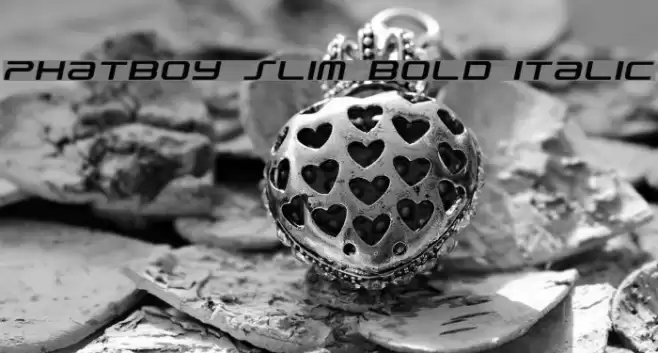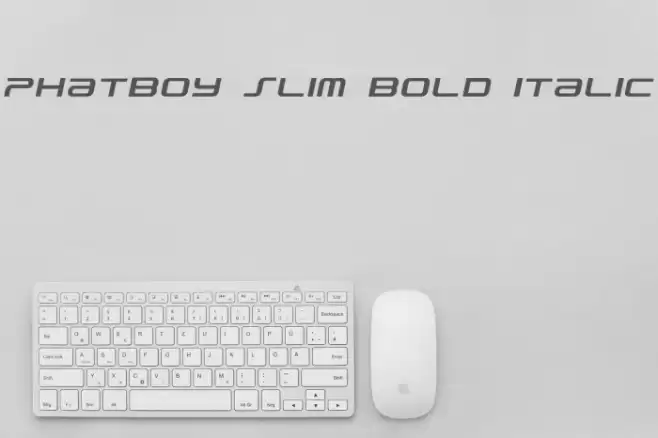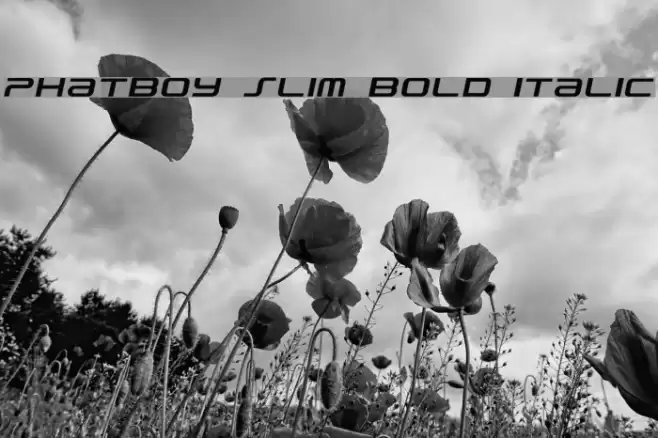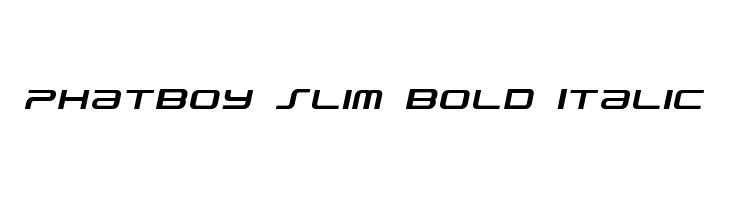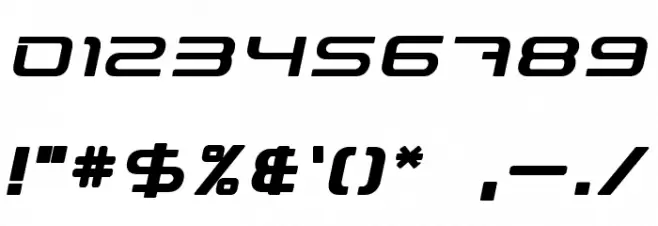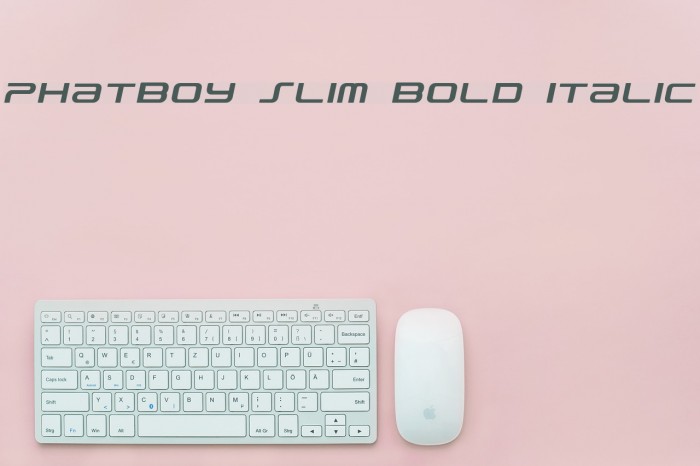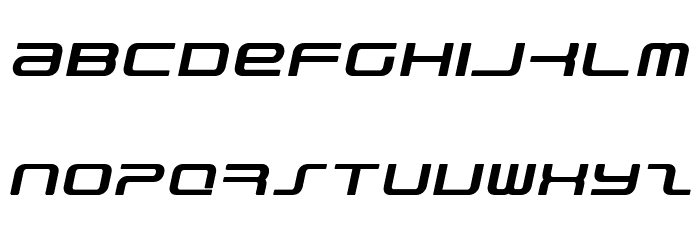
PhatBoy Slim Bold Italic
This font features a sleek, modern design with a futuristic flair. The characters are slightly italicized, giving a sense of motion and dynamism. The strokes are bold and consistent, with a uniform thickness that maintains clarity and readability. The overall style is geometric, with rounded edges that soften the otherwise sharp and angular forms. This font is particularly effective for creating a contemporary and tech-savvy aesthetic. The spacing between characters is tight, enhancing the compact and streamlined appearance. The numerals and special characters are designed to match the overall style, ensuring a cohesive look across all text elements.
A bold, italicized font with a modern, geometric design.
- Proposed Projects: Ideal for tech branding, futuristic posters, digital interfaces, and video game titles.
- Character Spacing: Tight